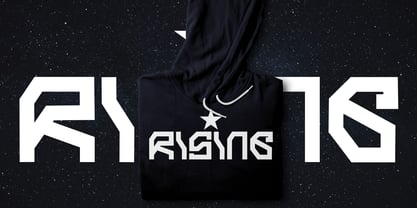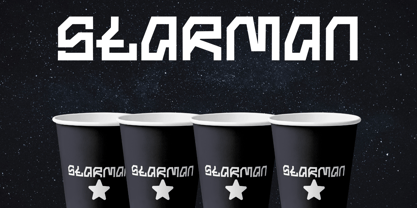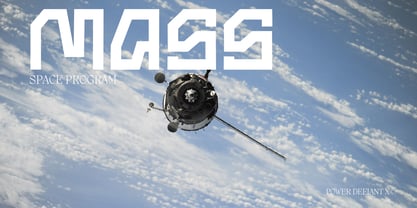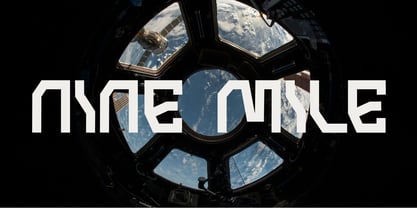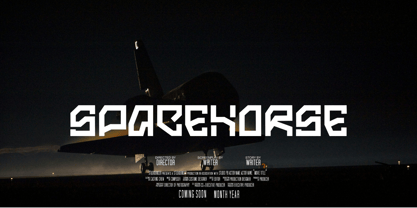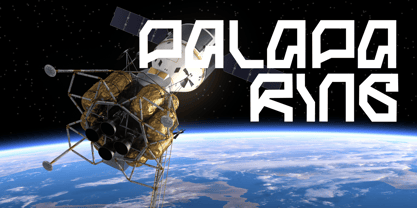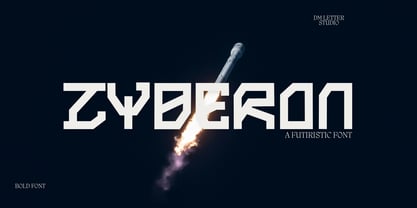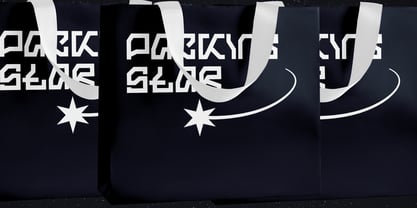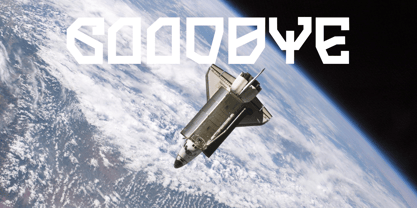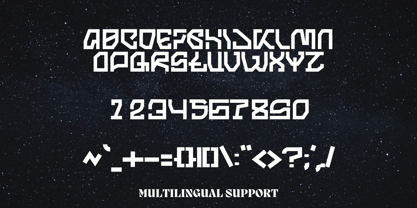
Zyberon
The Zyberon Font Family was designed by Dimas Prasetyo and published by DM Studio. Zyberon contains 1 styles. More about this family
Zyberon is a modern futuristic font designed to give your brand a bold, sleek, and sophisticated edge. Whether you're crafting a luxury logo, an elegant food brand, or an eye-catching modern sign, Zyberon delivers precision and power in every letterform.
With clean geometry and futuristic flair, Zyberon offers the perfect balance between elegant curves and sharp digital edges. Its refined structure makes it suitable for luxury branding, while its unique character makes your logo design stand out in any industry—from food packaging to tech startups.
This display font was built for those who want their brand to feel cutting-edge, elevated, and timeless. Zyberon adapts easily across digital and print platforms, bringing high-impact style to headers, storefront signs, packaging, and more.
Perfect For:
• Luxury Logos – Give your brand a premium, tech-inspired signature
• Elegant Food Packaging – From high-end desserts to modern bistros
• Modern Branding Projects – Clean, futuristic, and minimalist
• Signage & Storefronts – Create bold signs that stand out
• Tech, Fashion, & Lifestyle Brands – Sleek, confident, and future-ready
🔧 Font Features:
• ALL CAPS
• Numbers & Punctuation
• Perfect for Print & Digital Use
• High-Legibility at All Sizes
Let Zyberon bring a refined futuristic style to your next design. With its blend of luxury, modernism, and elegance, it’s the perfect font for standout logos, stylish signs, or food branding that needs a premium touch.